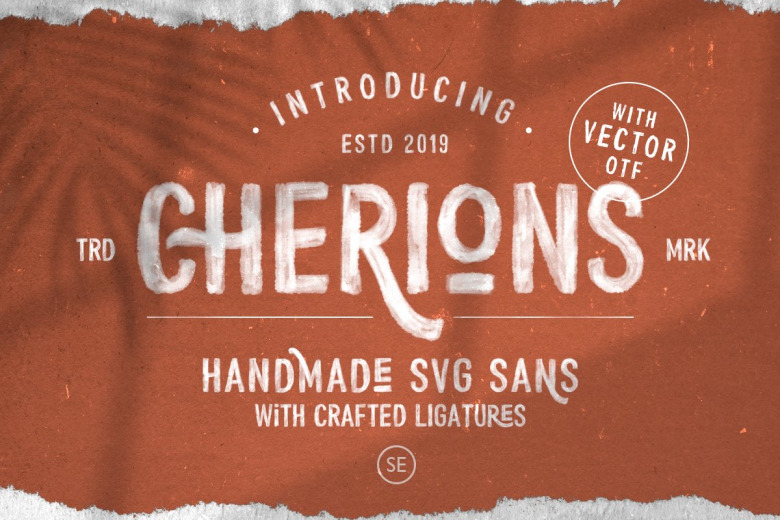
Cherions Font designed by saridezra is a playful hand-lettered bold typeface that contains the newest font format, SVG, with vector format.
You can use these fonts for various purposes such as making realistic hand lettering, for promotions, or other purposes that will make your design more real as handmade. This font also contain fabulous ligatures that will make your design stand out! This font also support multi language.